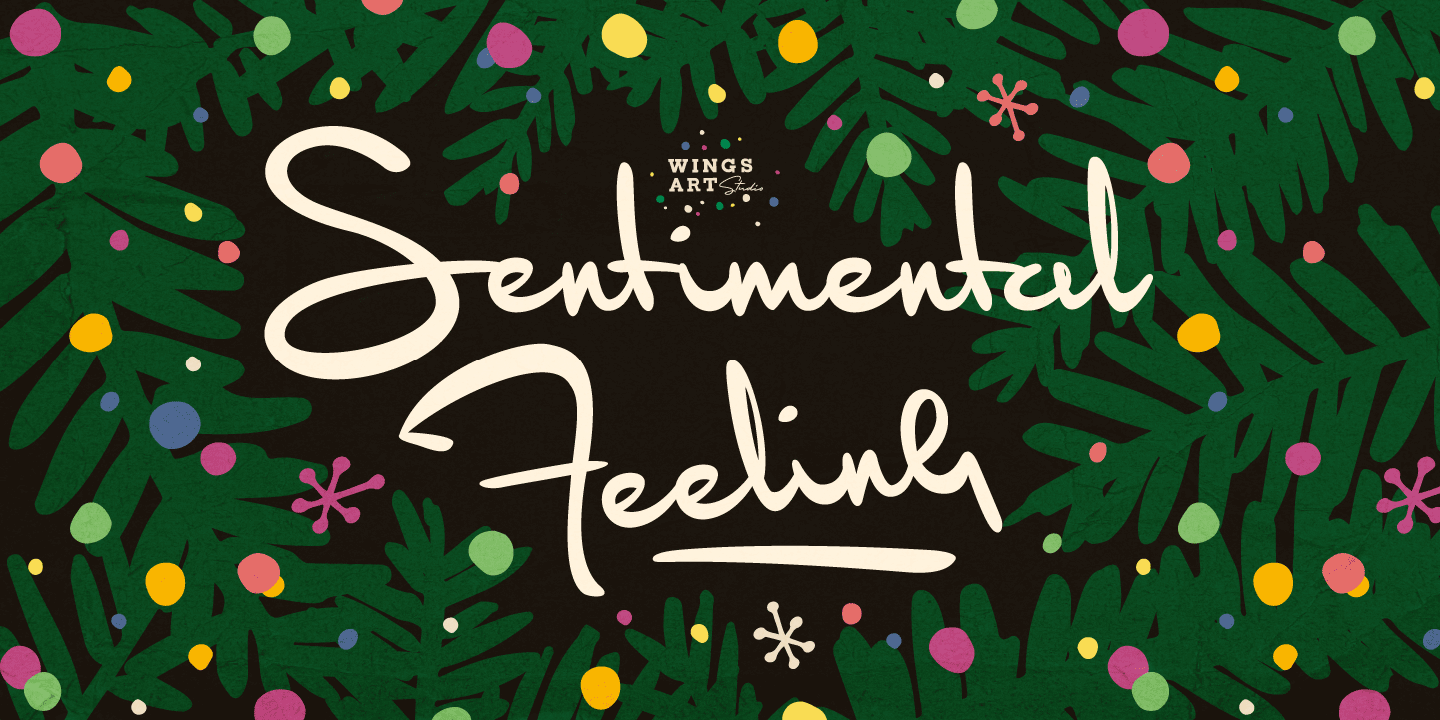
Sentimental Feeling Font is perfect for nostalgic memory books, heartfelt condolence materials, emotional memoir covers, vintage family photo albums, touching tribute designs, sentimental anniversary celebrations, meaningful keepsake packaging, tender farewell cards, cherished memory preservation, and any emotional project that honors the bittersweet beauty of treasured memories and the profound depth of human sentiment.
What makes Sentimental Feeling Font exciting is its emotional authenticity that captures the tender vulnerability of cherished memories and the gentle melancholy of moments that touch the deepest parts of our hearts. This typeface embodies the essence of human emotion with flowing letterforms that seem to carry the weight of precious memories and the gentle ache of beautiful nostalgia. The font's heartfelt character makes it perfect for brands and projects that want to communicate emotional depth, genuine sentiment, and the profound beauty found in life's most touching and meaningful moments.
The Sentimental Feeling Font family includes multiple weights and emotional variations, featuring light, regular, and bold versions along with delicate flourishes and alternate characters that enhance the font's tender emotional appeal. This comprehensive collection allows designers to create genuinely moving typography that maintains the font's signature sentimental character while providing flexibility for various memorial and emotionally significant design applications.
When exploring authentic emotional typography, Sentimental Feeling Font Free Download offers designers an exceptional opportunity to work with a typeface that genuinely captures the spirit of human sentiment and emotional depth. This font demonstrates innovative design thinking by incorporating the natural flow and gentle vulnerability that define both personal emotional expression and the universal human experience of treasuring meaningful moments and relationships.
Professional designers appreciate Sentimental Feeling Font for its ability to instantly create emotional connections and establish trust with audiences experiencing significant life moments and transitions. The font's tender character makes it particularly effective for memorial services, family-focused brands, and emotional wellness organizations seeking to communicate genuine care and understanding during life's most sensitive and meaningful occasions.
The universal appeal of Sentimental Feeling Font lies in its perfect representation of human emotion and sentimental connection that resonates with people across all cultures and life experiences. This typeface serves as a gentle tribute to the power of memory and the importance of honoring the emotional moments that define our most precious human connections.
For creative professionals working with memorial and emotionally sensitive brands, Sentimental Feeling Font represents the ultimate typography solution that brings authentic emotional depth and sentimental beauty to any application, ensuring designs reflect the tender care and genuine sentiment that define the most meaningful expressions of human emotion and memory preservation.